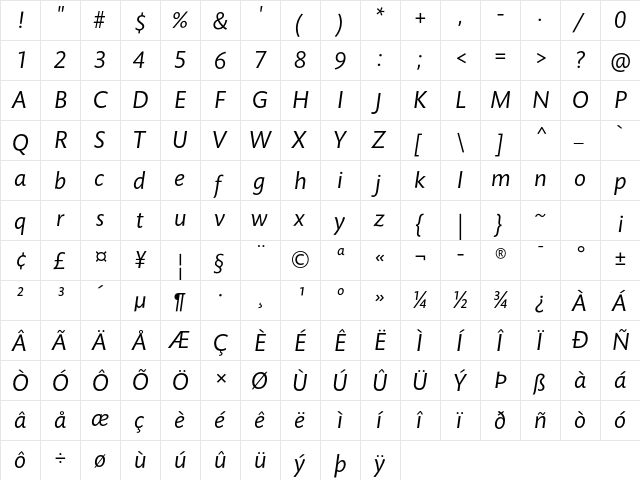
Mundo Sans Std Italic Font Preview
Mundo Sans Std Italic
Design Context for Mundo Sans Std Typeface
Mundo Sans Std offers clean, dependable letterforms without strong stylistic allegiance, making it a practical choice for designers who need flexibility. The slanted form adds forward momentum and visual energy.
Pro Tip: Try Mundo Sans Std for annotation and caption copy alongside an upright companion — the contrast in angle creates a dynamic but ordered typographic system.